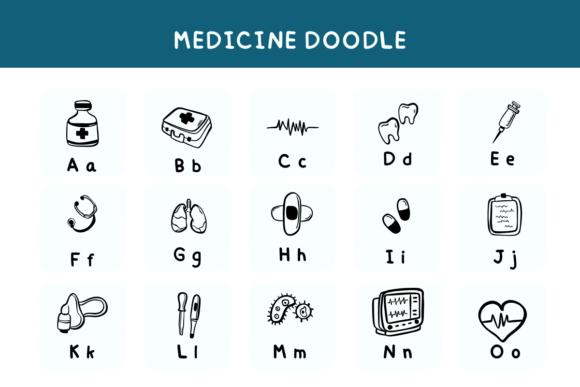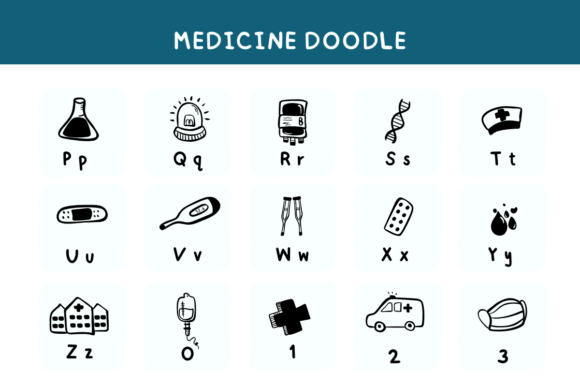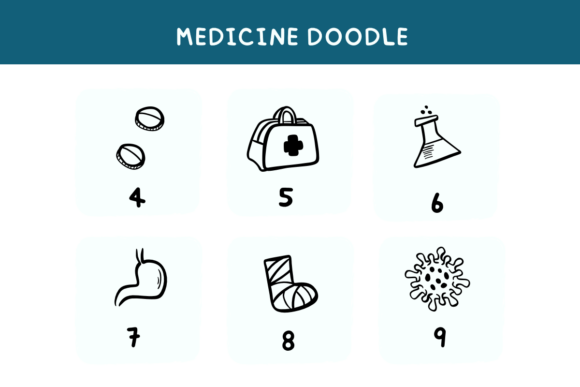
Introduction to Medicine Doodle Font
Do you ever find yourself scribbling down ideas and inspiration in the margins of your notebook, only to discover that your creative spark has been captured in a doodle? That’s exactly what happened to me the other day, and I couldn’t help but feel a sense of satisfaction at seeing my thoughts brought to life in a simple yet effective way. The Medicine Doodle Font is a perfect example of this kind of creative expression, and it’s a design resource that can add a personal touch to any project.
Whether you’re a designer looking for a unique element to add to your next design project, or simply someone who loves to jot down notes and ideas, the Medicine Doodle Font is a valuable resource that can help bring your creative vision to life. With its high-quality designs and transparent background, this font is perfect for use in a variety of creative projects, from banners and social media posts to mugs and stationery.
Key Features of Medicine Doodle Font
- Unique, hand-drawn design ideal for creative projects and medical-related themes
- High-quality font with a transparent background, perfect for use in digital designs
- Available in multiple sizes and resolutions, ensuring versatility for various design applications
- Perfect for use in medical-related designs, creative projects, and as a design element in infographics and illustrations
- Unique doodle style adds a touch of personality to any design, making it stand out from other fonts
Honest Review: Medicine Doodle Font
- What works well: ✨ The font’s whimsical and playful design made it perfect for a children’s book cover I was working on. The high quality of the font files ensured that the text looked crisp and clear.
- What works well: ✨ The Medicine Doodle Font also included a variety of weights and styles, giving me a lot of flexibility in my design choices.
However, I did encounter a few limitations when using the font.
- Limitations: ⚠️ The font was a bit too stylized for some of my other design projects, and the lack of a bold weight made it difficult to use for headings.
Overall, I was impressed with the Medicine Doodle Font and would definitely recommend it for the right project. Just be aware of its limitations and make sure it fits with your design goals.
To get the most out of the Medicine Doodle Font, experiment with different font sizes, colors, and styles to create visually appealing designs. Use the font in combination with other design elements to add depth and interest to your creative project.
The Medicine Doodle Font is commonly used in:
- Healthcare-related projects, such as posters and brochures.
- Designing educational materials, such as worksheets and lesson plans.
- Creating social media graphics and advertisements.